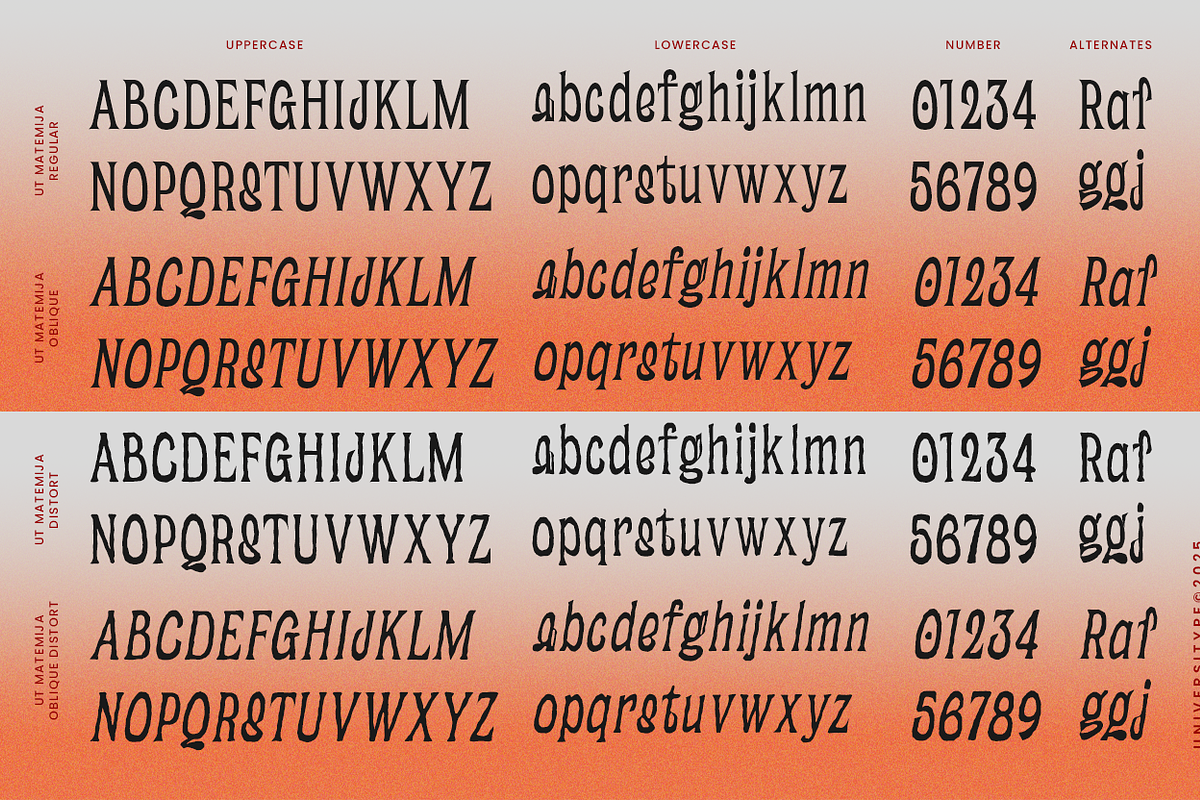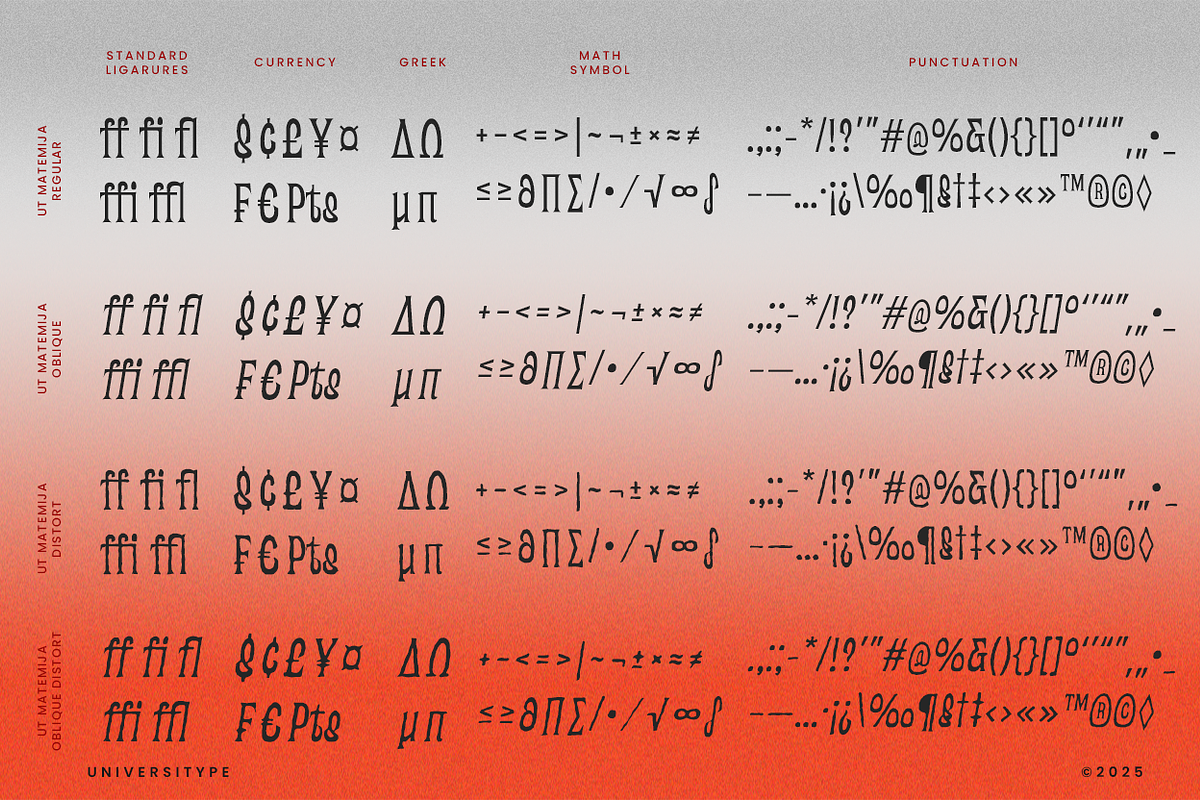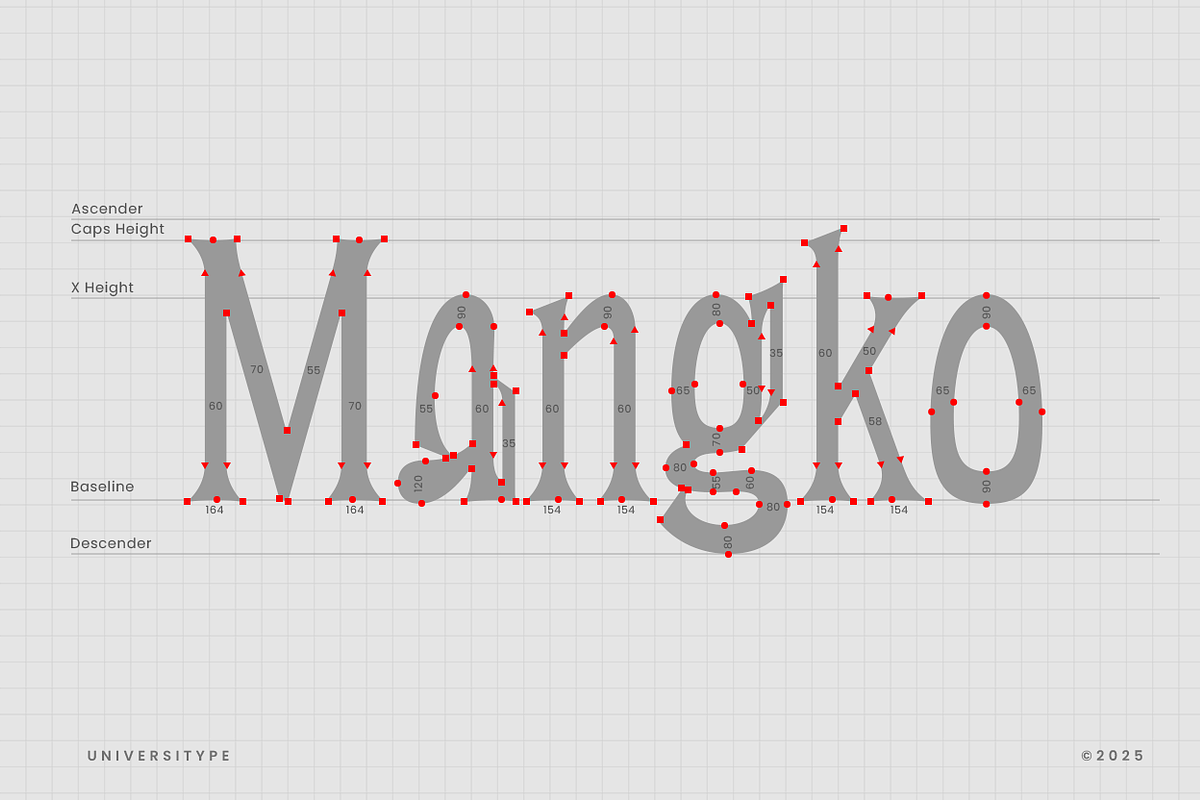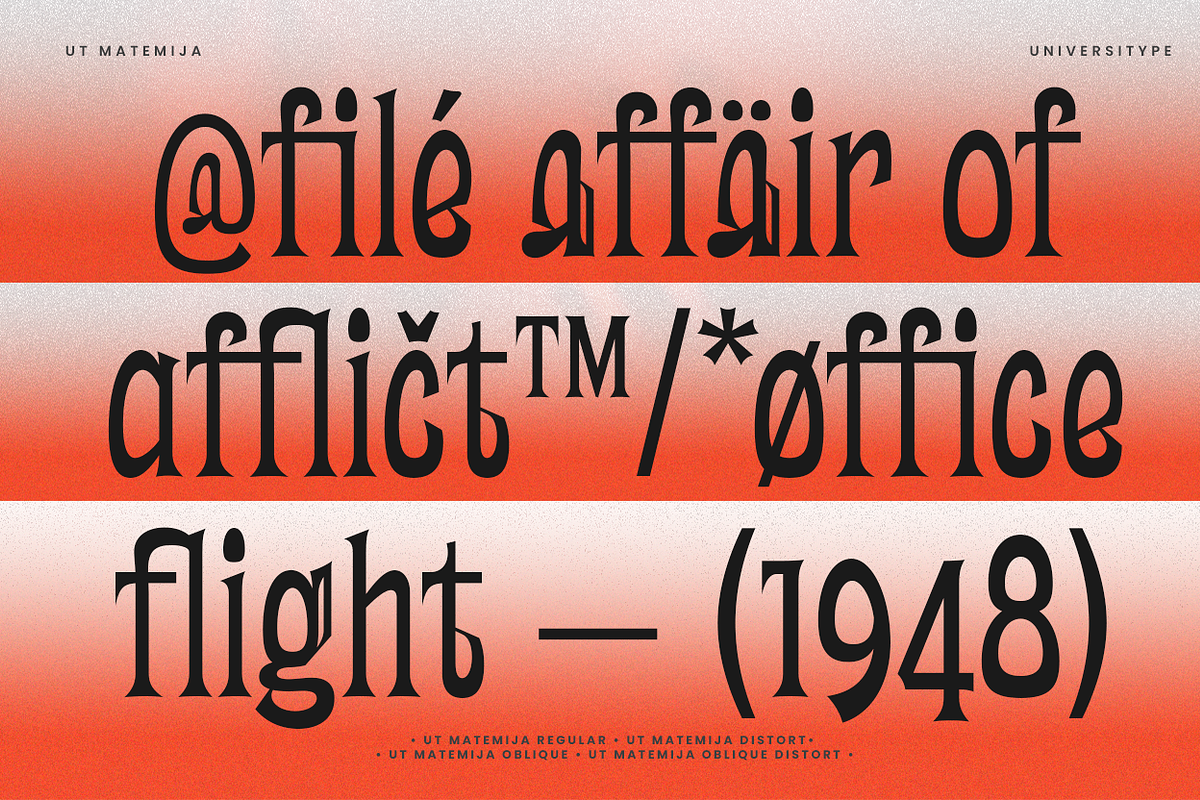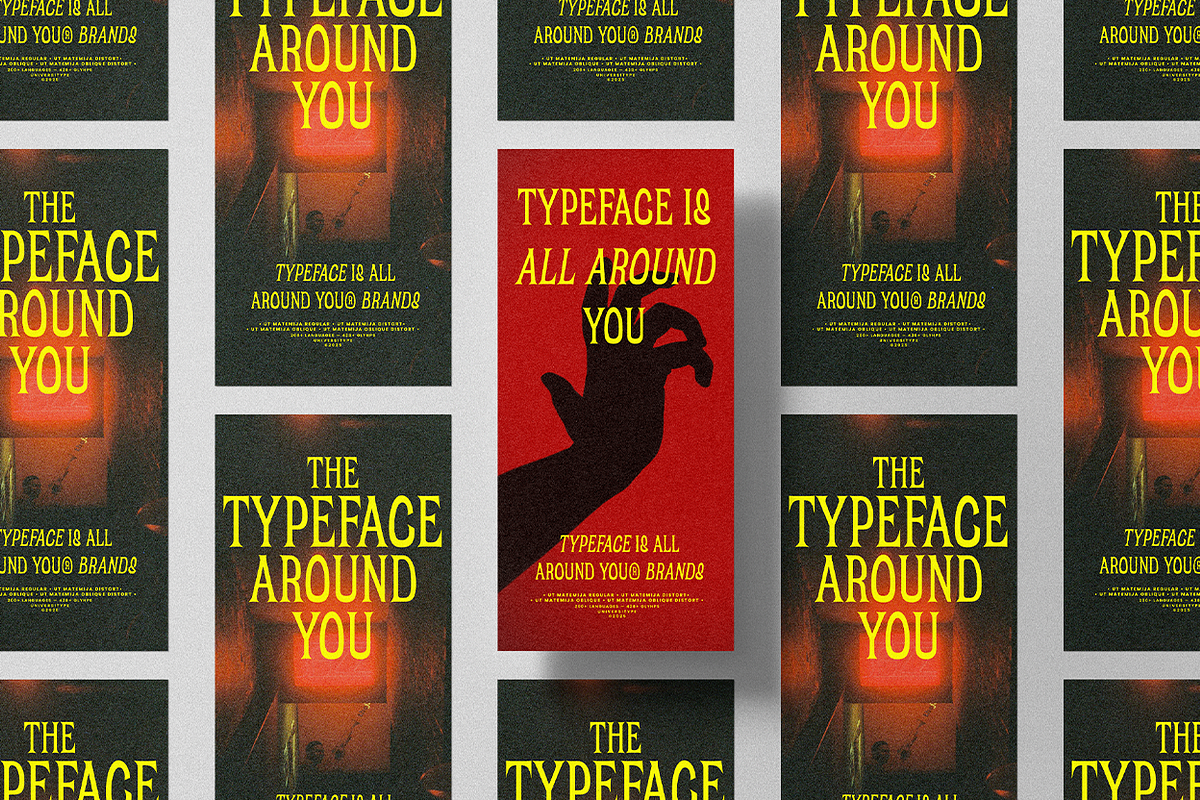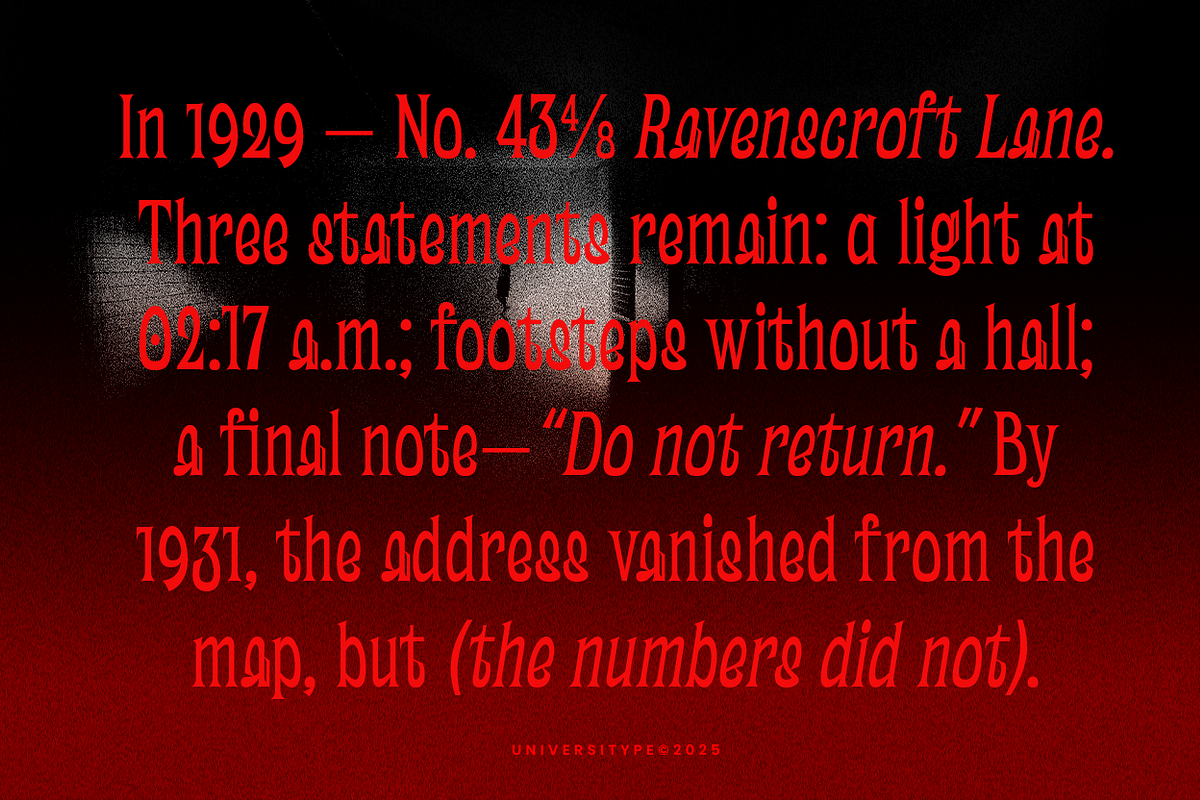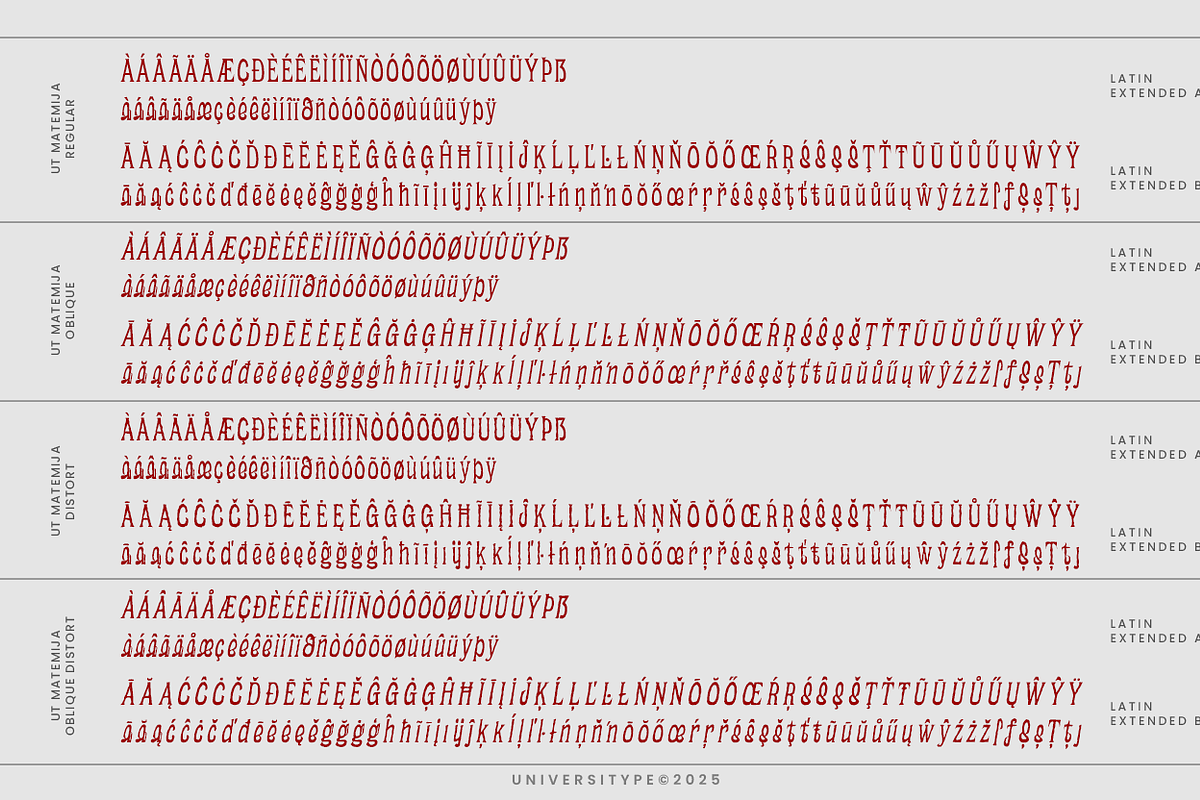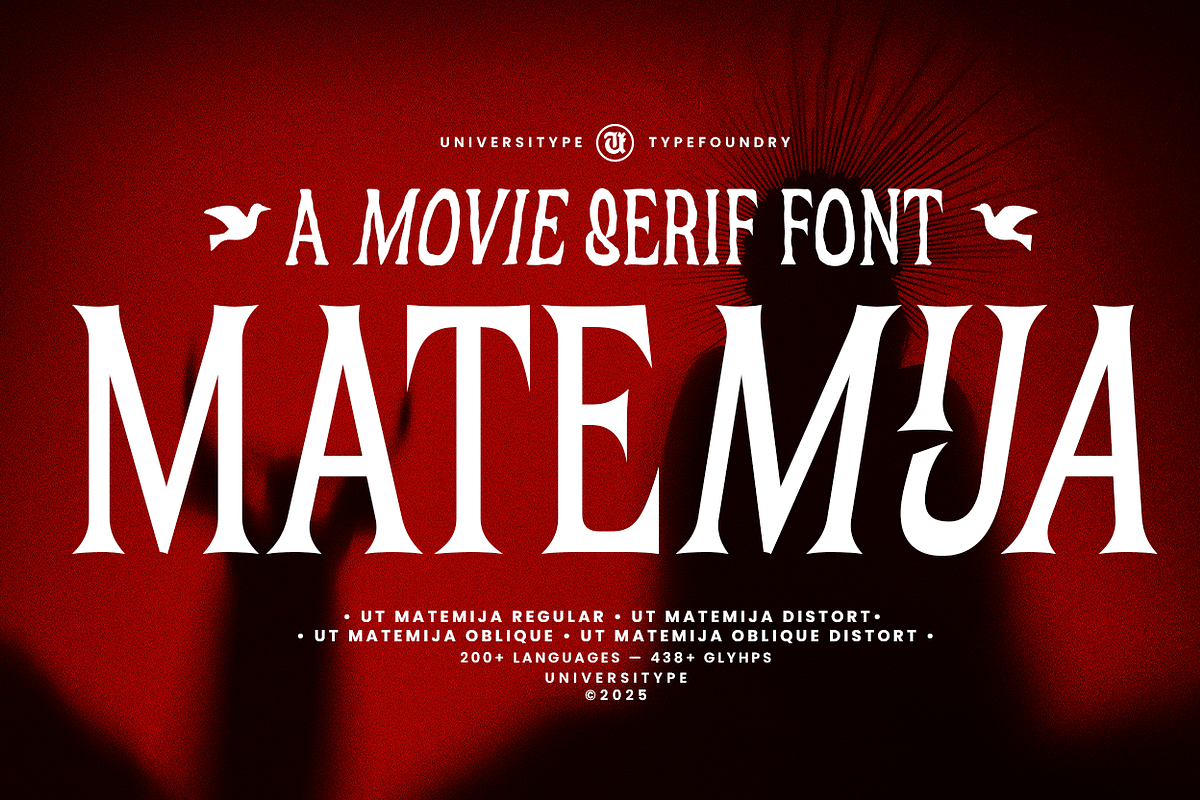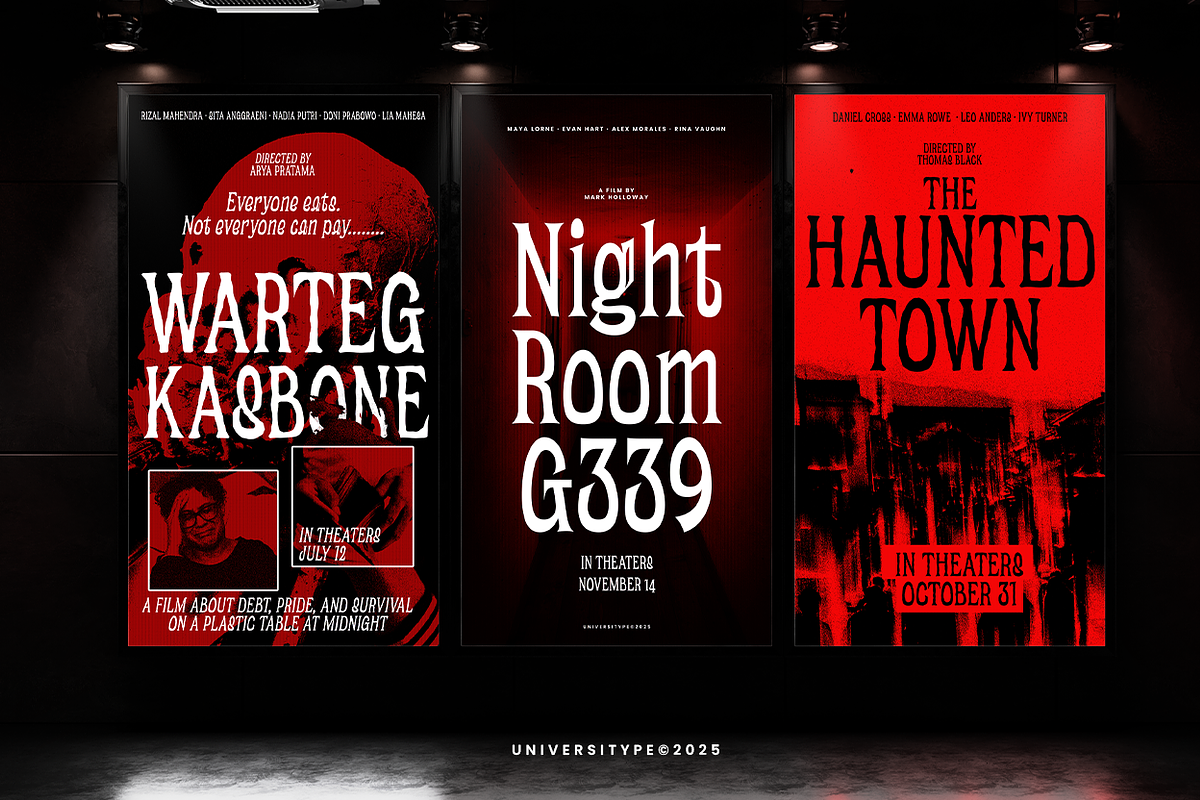
UT Matemija - A Movie Serif Font
UT Matemija is a cinematic serif typeface designed for dramatic visuals, suspenseful storytelling, and high-impact display use. Inspired by classic movie title cards and psychological horror aesthetics, it combines sharp wedge serifs with organic, slightly distorted curves to create tension and atmosphere without losing clarity.
The typeface includes four expressive styles that allow designers to shift the mood from clean and composed to warped and unsettling, making it ideal for projects where emotion and character matter.
Font Styles Included
Regular Distort Oblique Distort Oblique
Ideal For
Film posters and title sequences Horror and thriller book covers Editorial headlines and magazine layouts Album artwork and music visuals *Branding projects with a cinematic tone
4 display styles with consistent character 300+ glyphs High-contrast serif construction Distinctive lowercase letterforms *Extended Latin language support
OpenType Features
Standard ligatures Stylistic alternates Case-sensitive punctuation Numerators and denominators